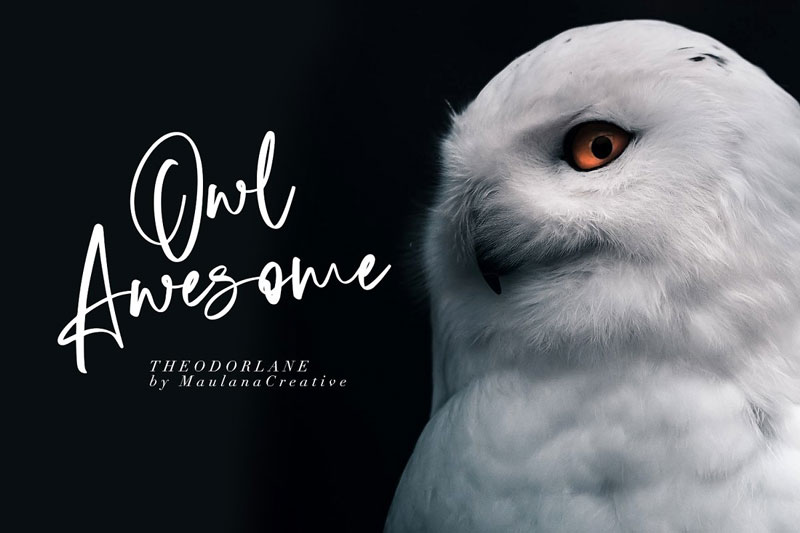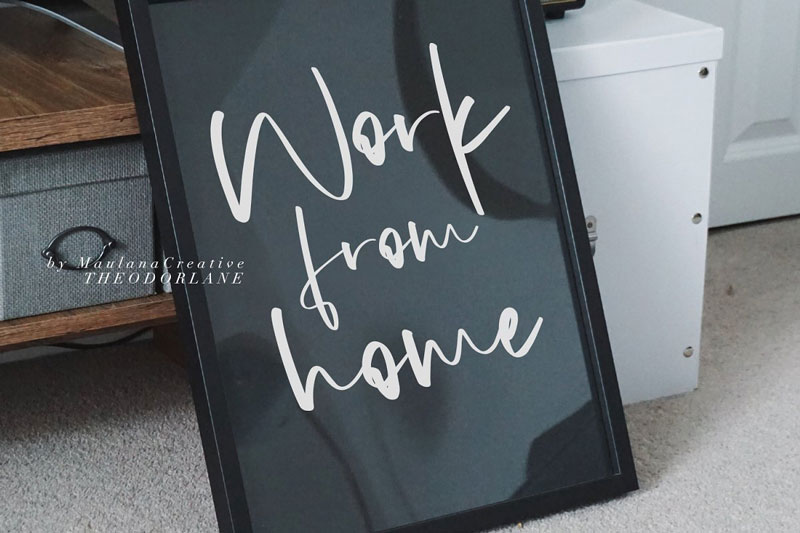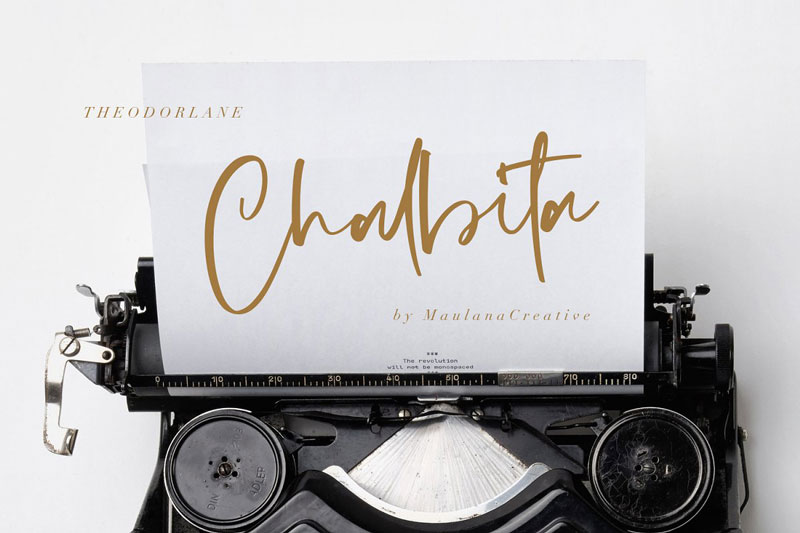
Theodorlane Font
Introducing the creativemarket – Theodorlane Font .Give your designs an authentic handcrafted feel. “Theodorlane” is perfectly suited to signature, stationery, logo, typography quotes, magazine or book cover, website header, clothing, branding, packaging design, and more. Also checkout Restgold Serif Font.
• Ligatures
• Multilingual Support